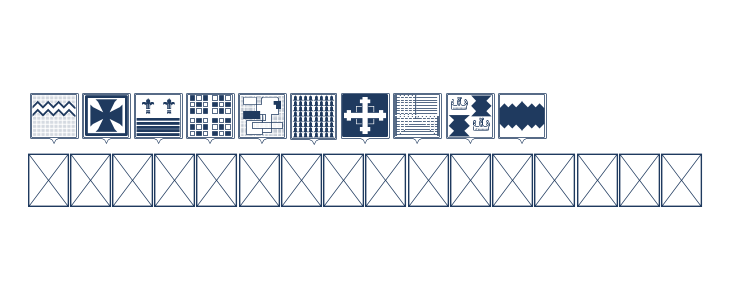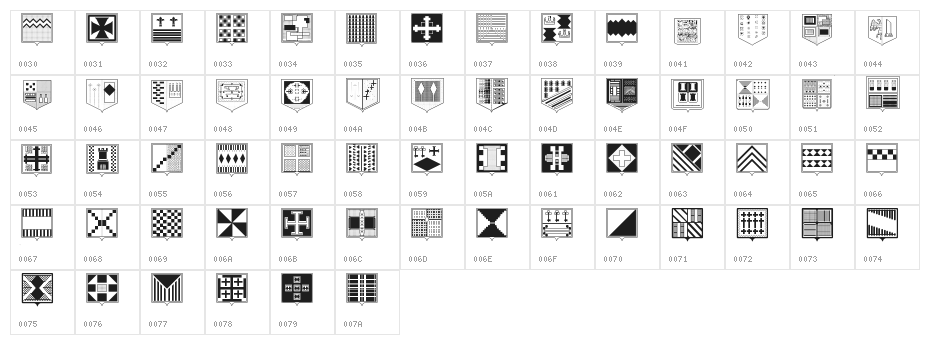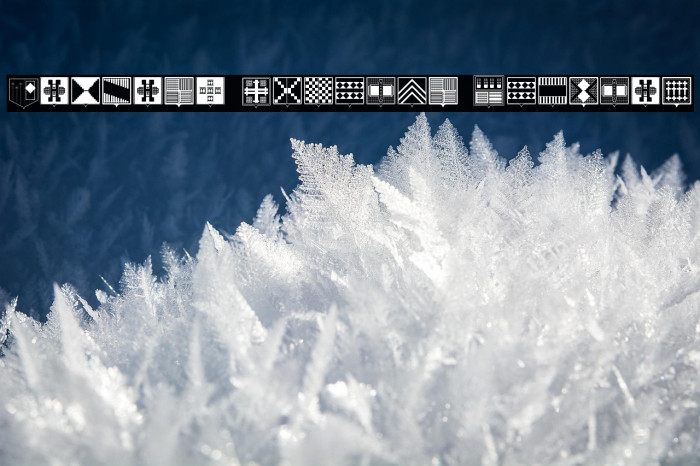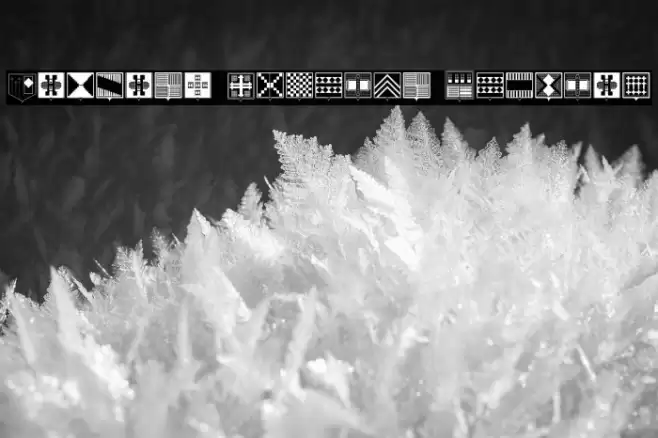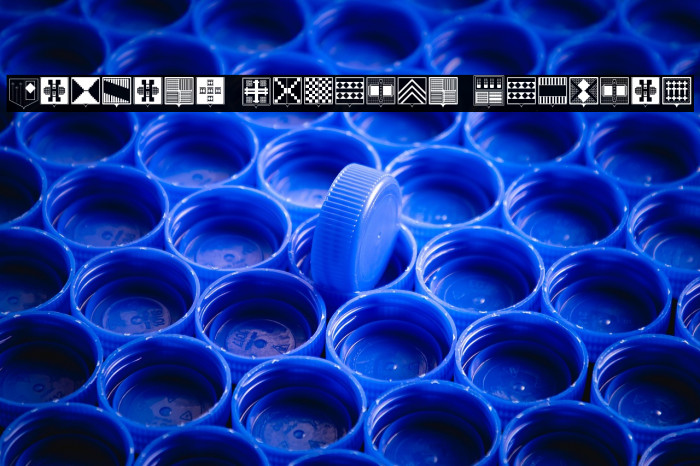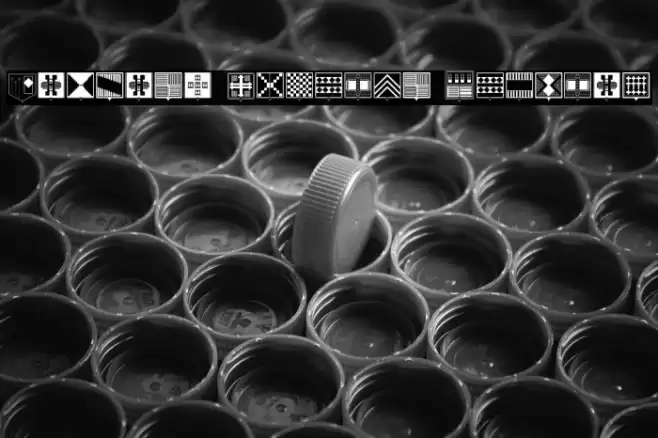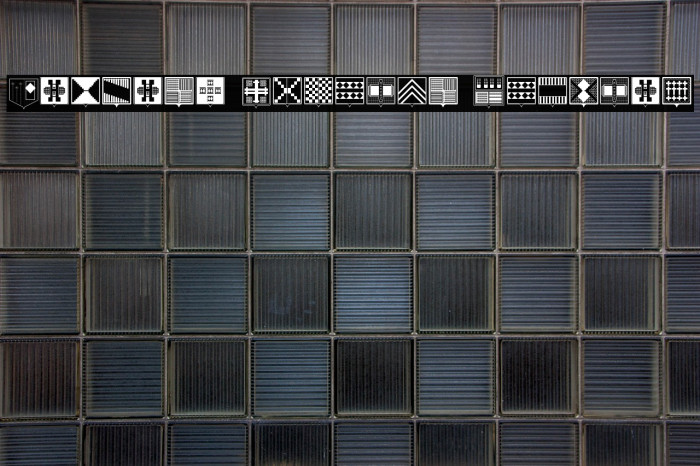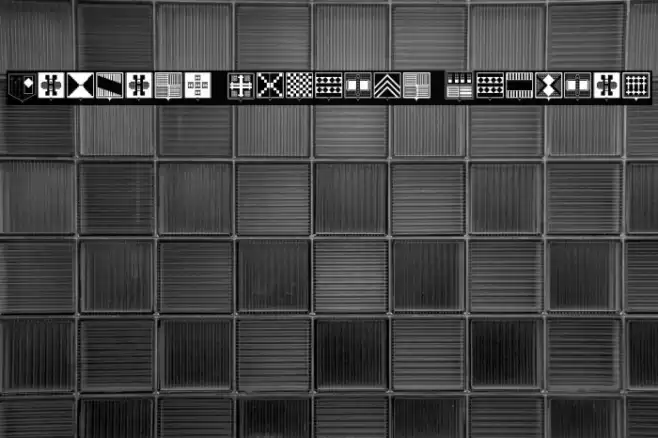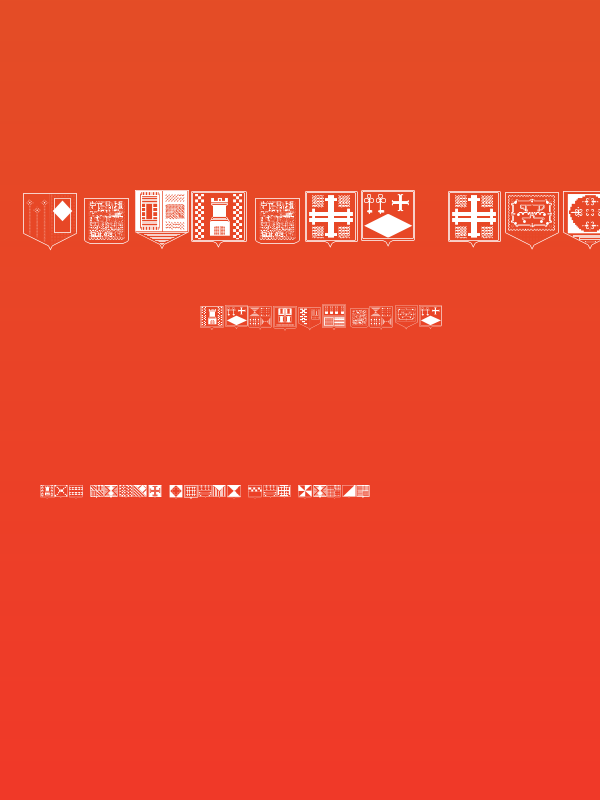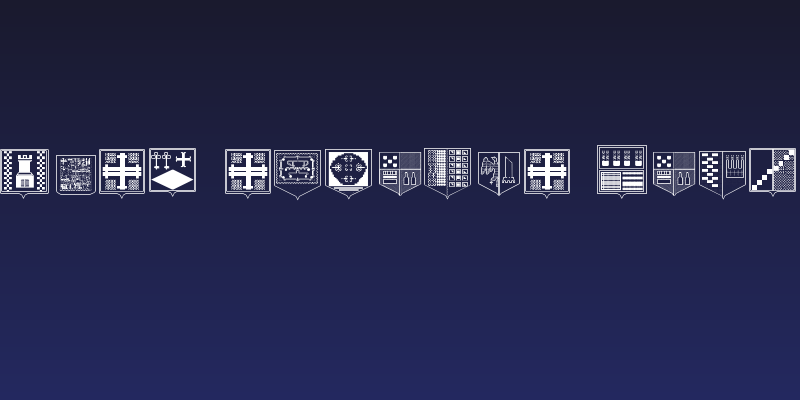
Fantasy Shields Regular Font
Fantasy Shields Regular Description
A decorative dingbat font featuring a variety of medieval and fantasy-inspired shield designs, each with unique patterns, symbols, and heraldic elements. The shields are highly detailed, with both filled and outlined styles, and are presented in a consistent geometric shape.
| Overall Style | Decorative, Fantasy, Medieval |
| Use Case | Icons, Themed graphics, Decorative elements |
| Proposed Projects | Tabletop RPG materials, fantasy book covers, game UI elements, heraldic design, themed invitations, educational posters. |